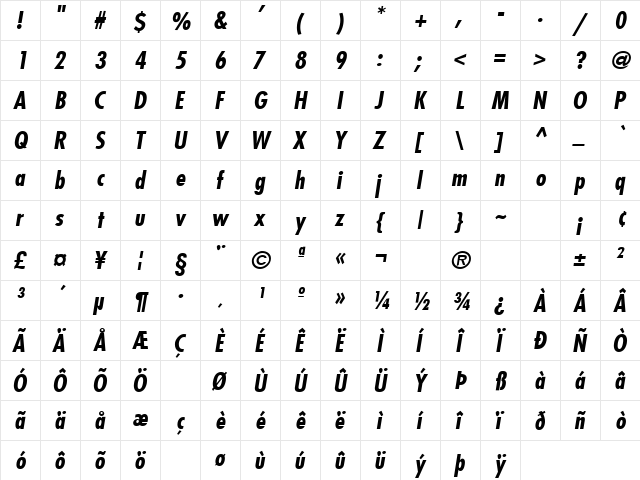
Thank You 2 Bold Italic
Design Context for Thank You 2 Typeface
Thank You 2 takes a measured approach to typography — its balanced proportions and neutral character make it a reliable workhorse for both digital and print work. Its italic angle brings a sense of urgency and motion to the letterforms. The heavy weight commands attention and anchors typographic hierarchies.